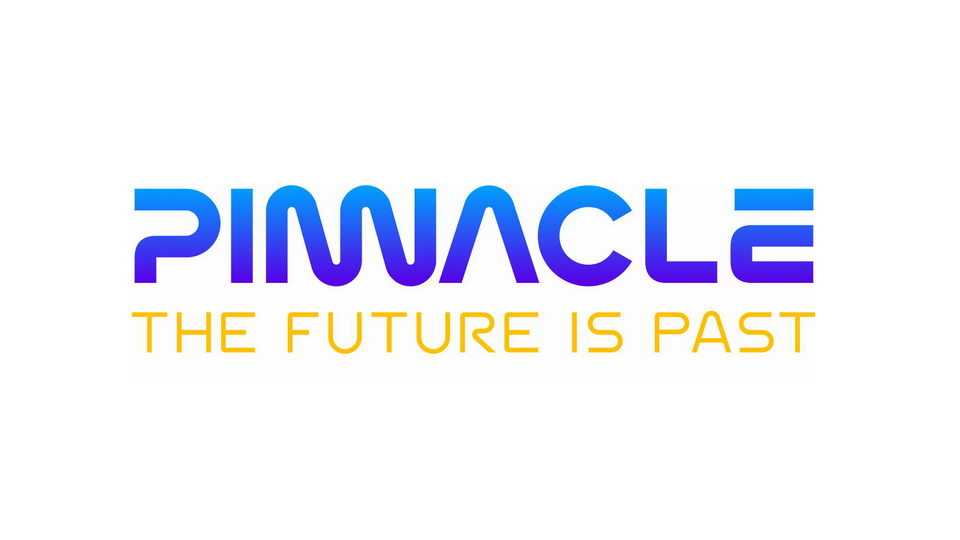
Download Pinnacle typeface, a NASA-inspired font family in multiple weights with the 70s-era look & feel. Pinnacle expands the famous style into both an upper and lower case, with symbols, figures, and enough ligatures & alternates to adorn a million mission patches.
Designer: Lauren Herda